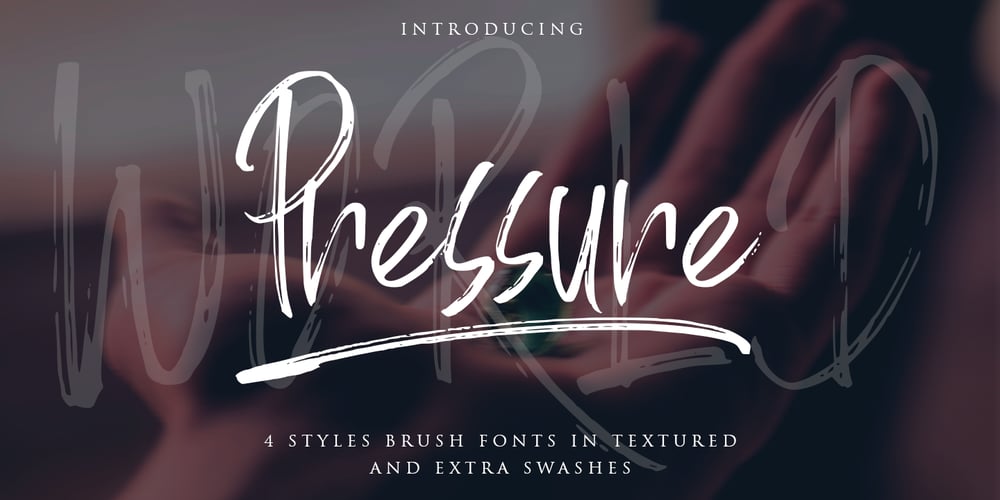
World Pressure Font Family was designed by Sarwo Edhi Prayitno and published by Haksen. World Pressure contains 5 styles and family package options. Introducing: World Pressure A rustic, dapper handwritten font with a personal charm. With quick dry strokes and a signature style, World Pressure is perfect for branding projects, homeware designs, product packaging – or simply as a stylish text overlay to any background image. World Pressure includes 4 font styles and additional swashes: World Pressure Regular handwritten script font containing upper & lowercase characters, numerals and a large range of punctuation. World Pressure Alternate This is a second version of World Pressure, with a completely new set of both lower and uppercase characters. If you wanted to avoid letters looking the same each time to recreate a custom-made style, or try a different word shape, simply switch to this font for an additional layout option. World Pressure Slant This is a third version of World Pressure, with a completely new set of both lower and uppercase characters in slant version. If you wanted to avoid letters looking the same each time to recreate a custom-made style, or try a different word shape, simply switch to this font for an additional layout option. World Pressure Alternate This is a forth version of World Pressure, with a completely new set of both lower and uppercase characters in slant version. If you wanted to avoid letters looking the same each time to recreate a custom-made style, or try a different word shape, simply switch to this font for an additional layout option. World Pressure Swashes A set of 26 hand-drawn swashes, the perfect finishing touch to underline your Northwell text. Simply install this as a separate font, select it from your font menu and type any A-Z Uppercase and Lowercase also Number 0-9 character to create a swash. Fonts are provided in OTF formats. Fonts include multilingual support. Ligatures are also available for several lowercase characters (double-letters which flow more naturally). These are only accessible via software with opentype capability or a glyphs panel, e.g. Photoshop/Illustrator.